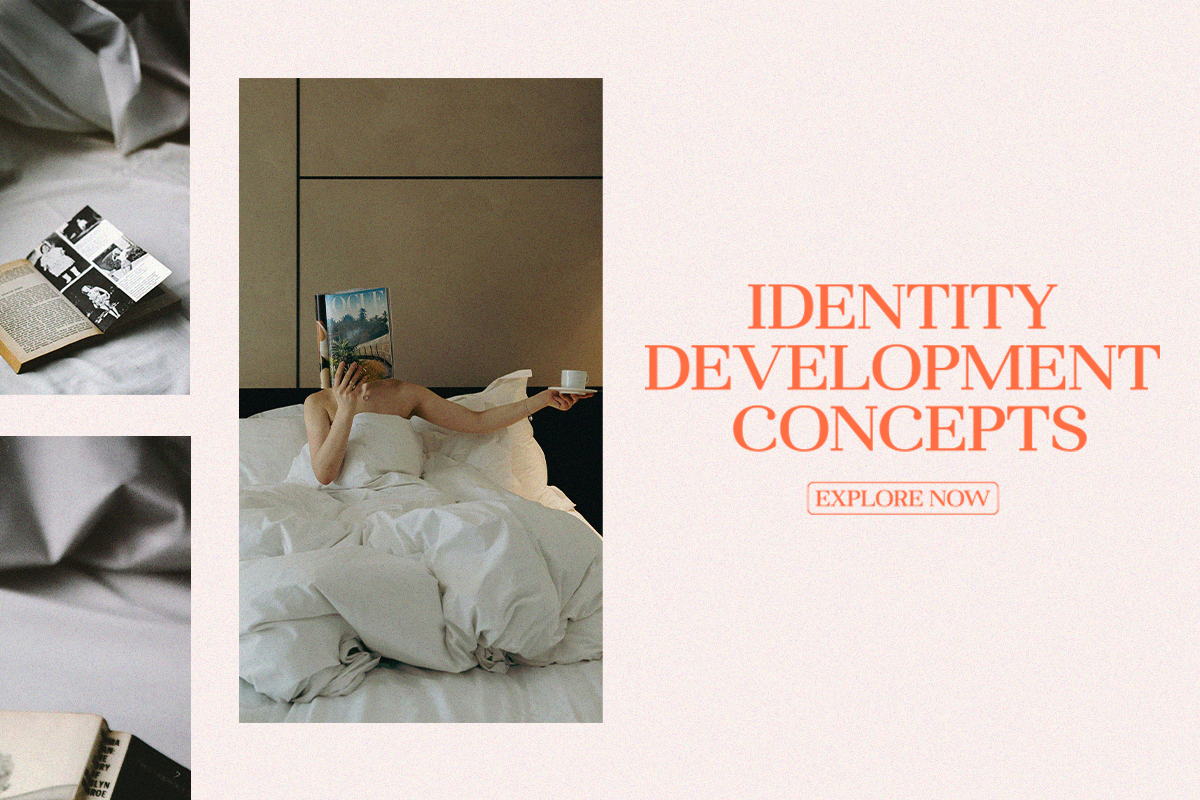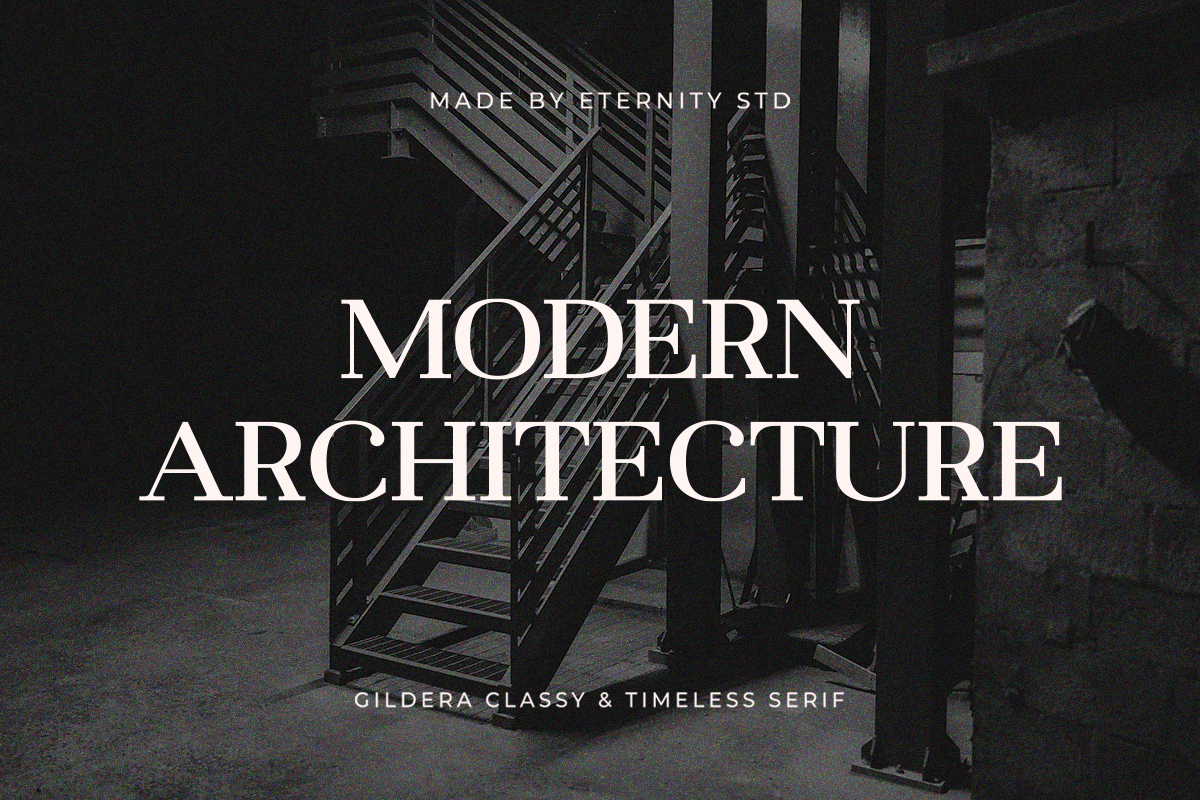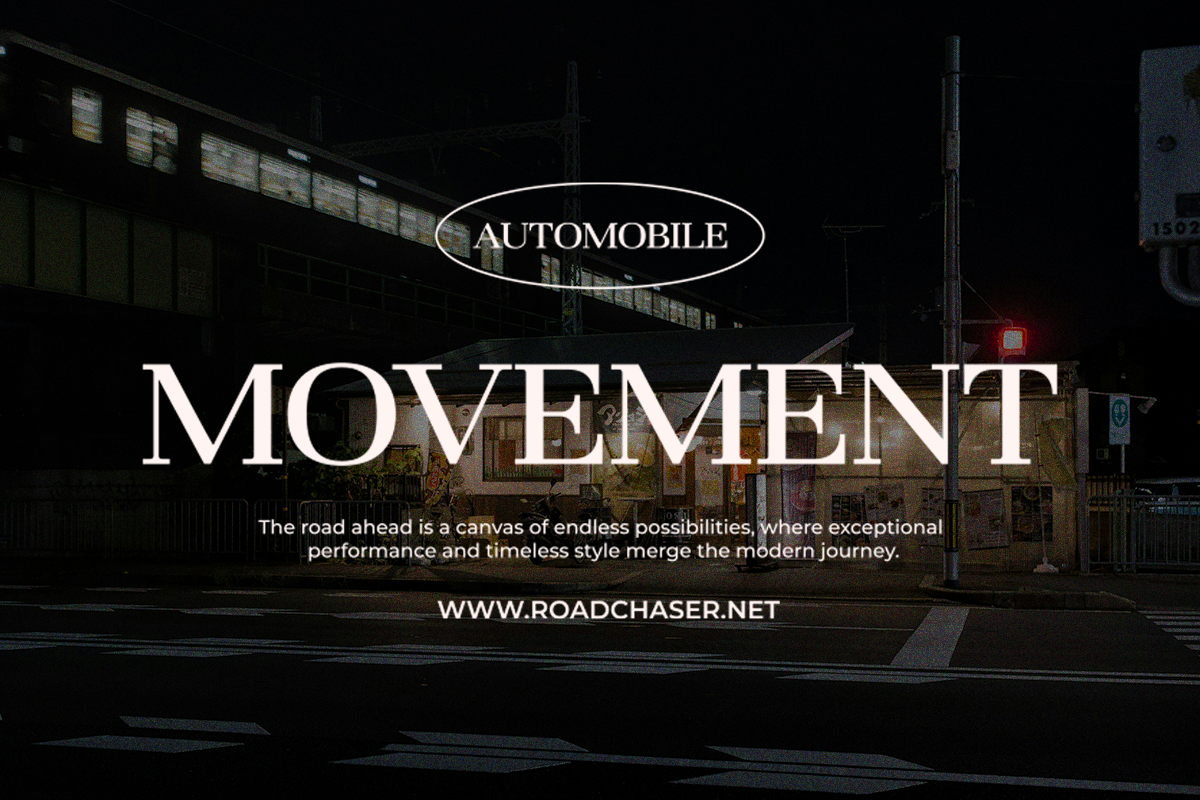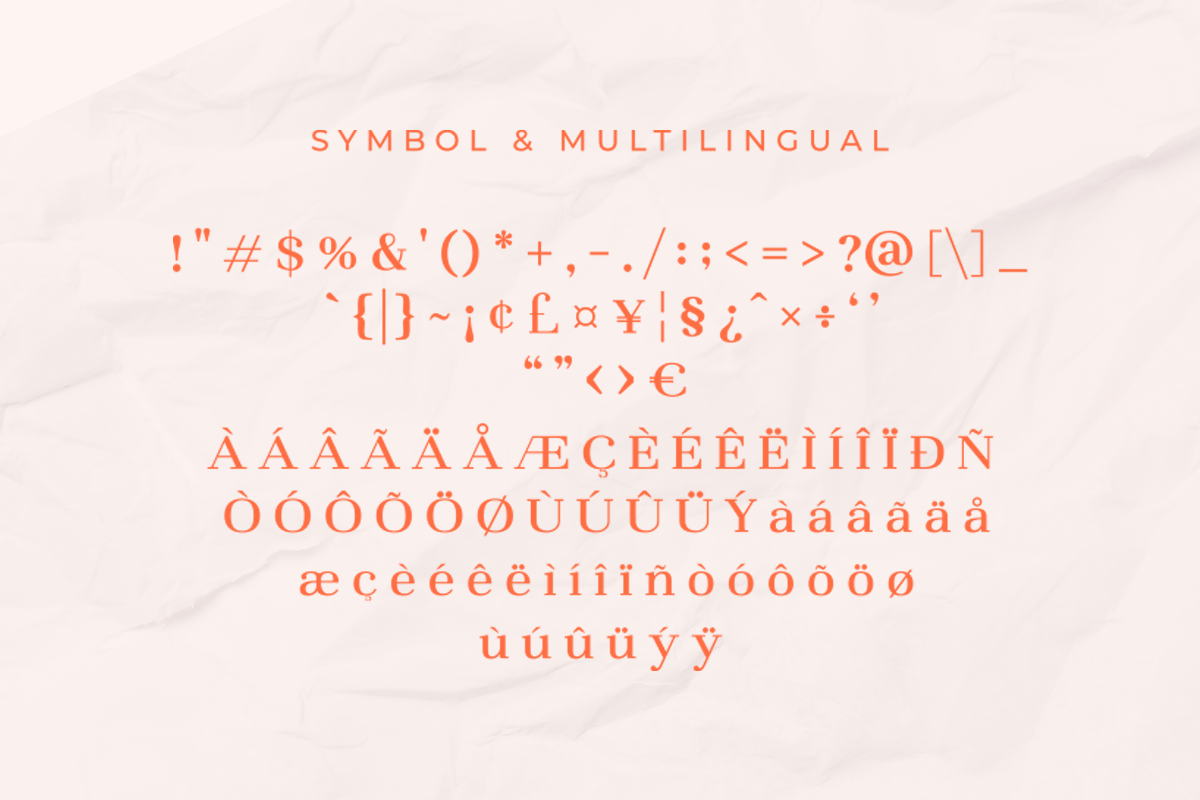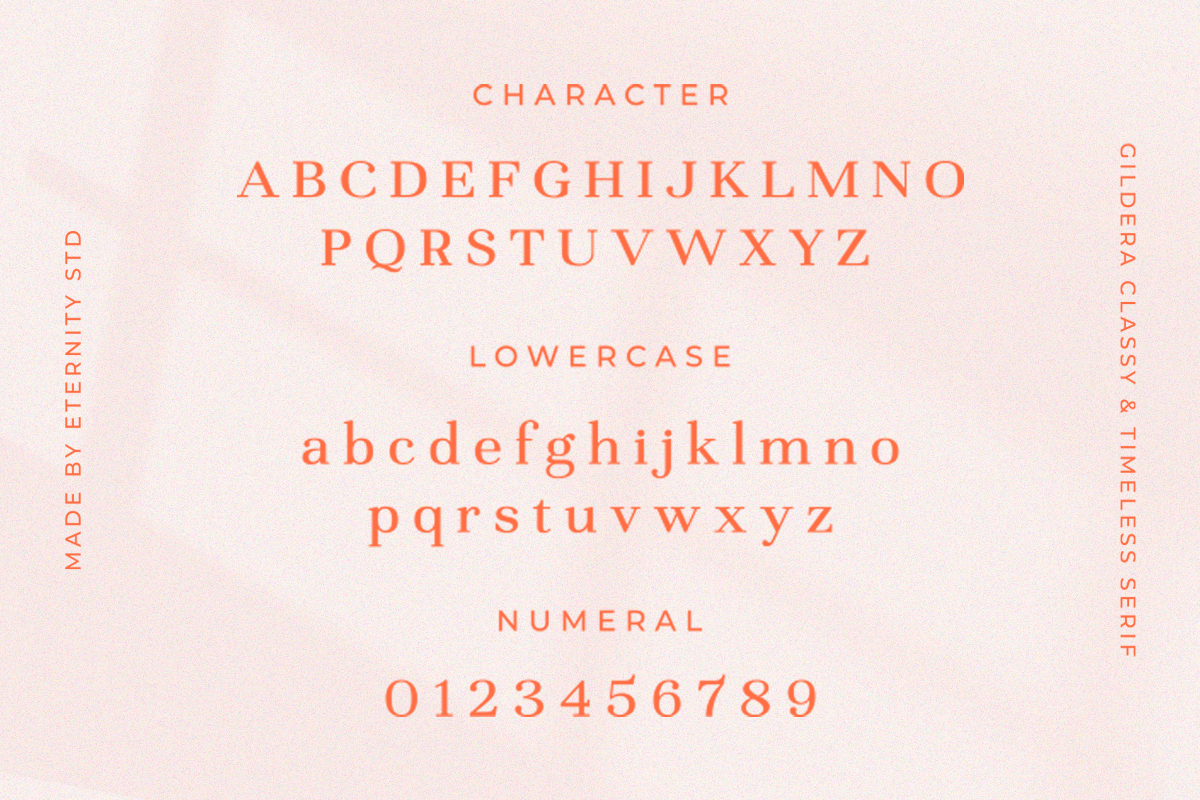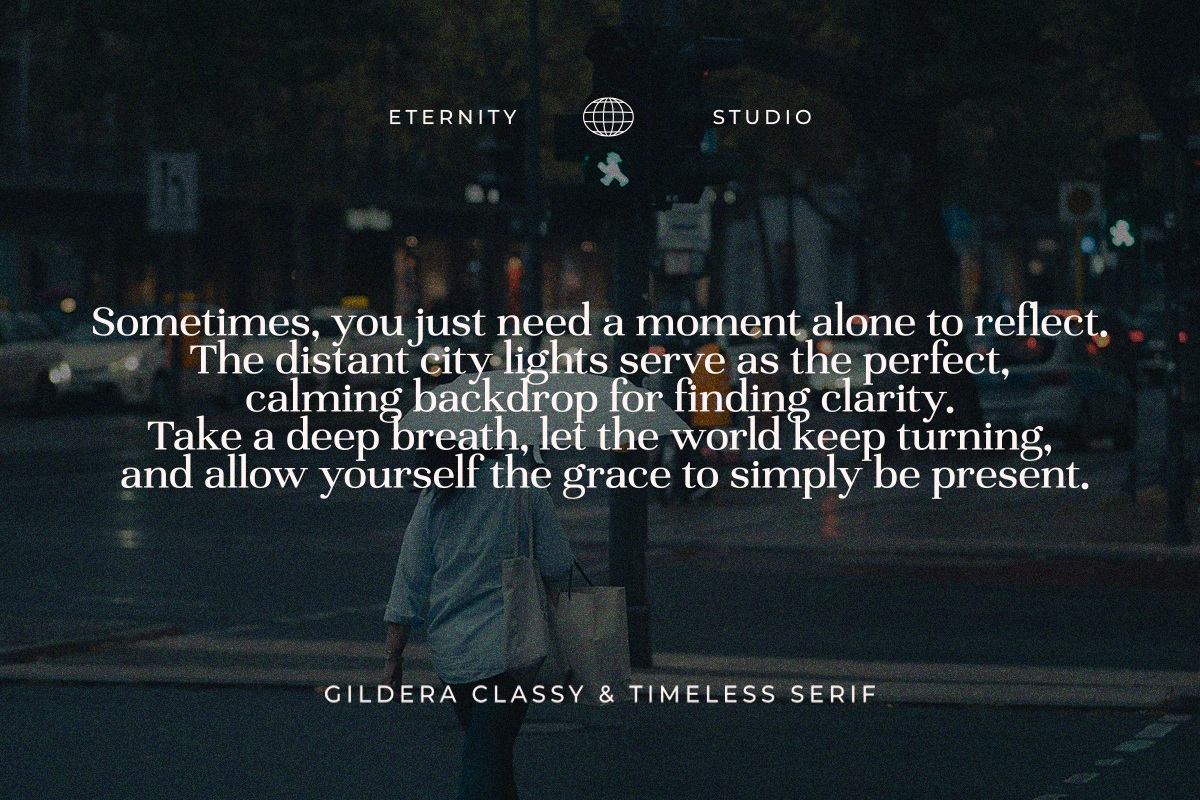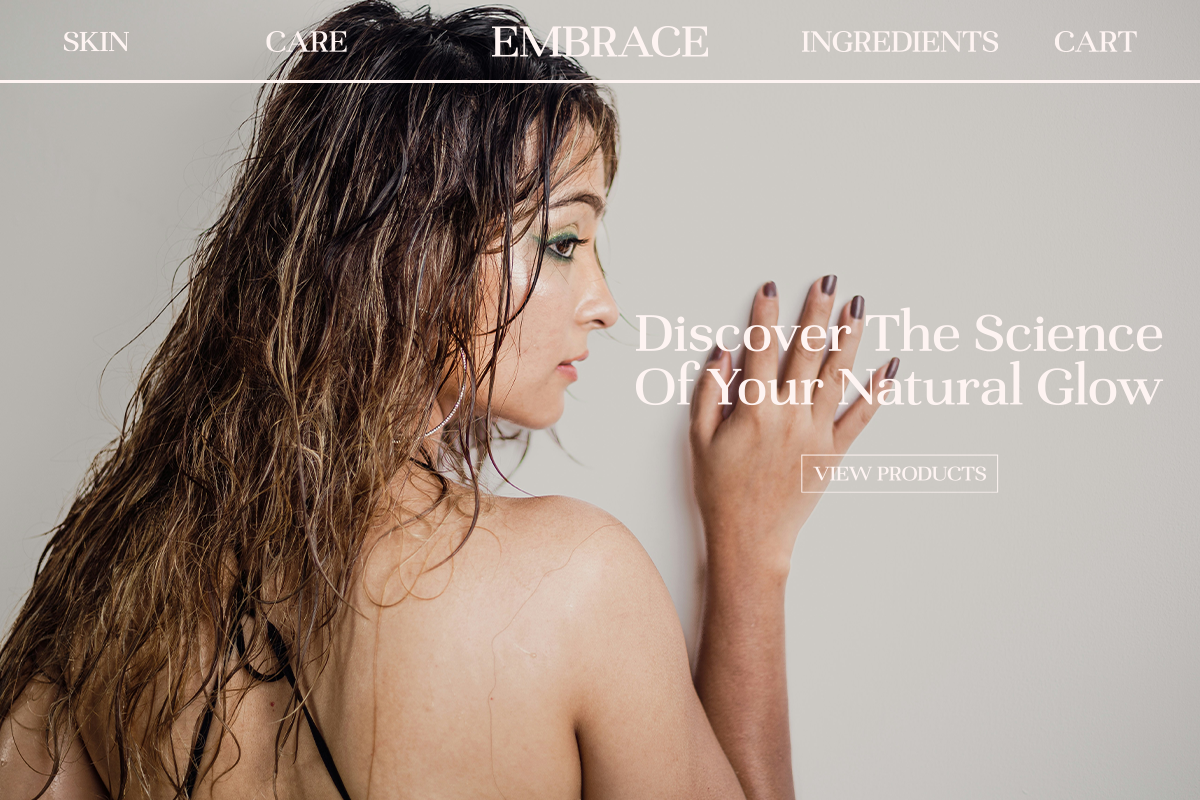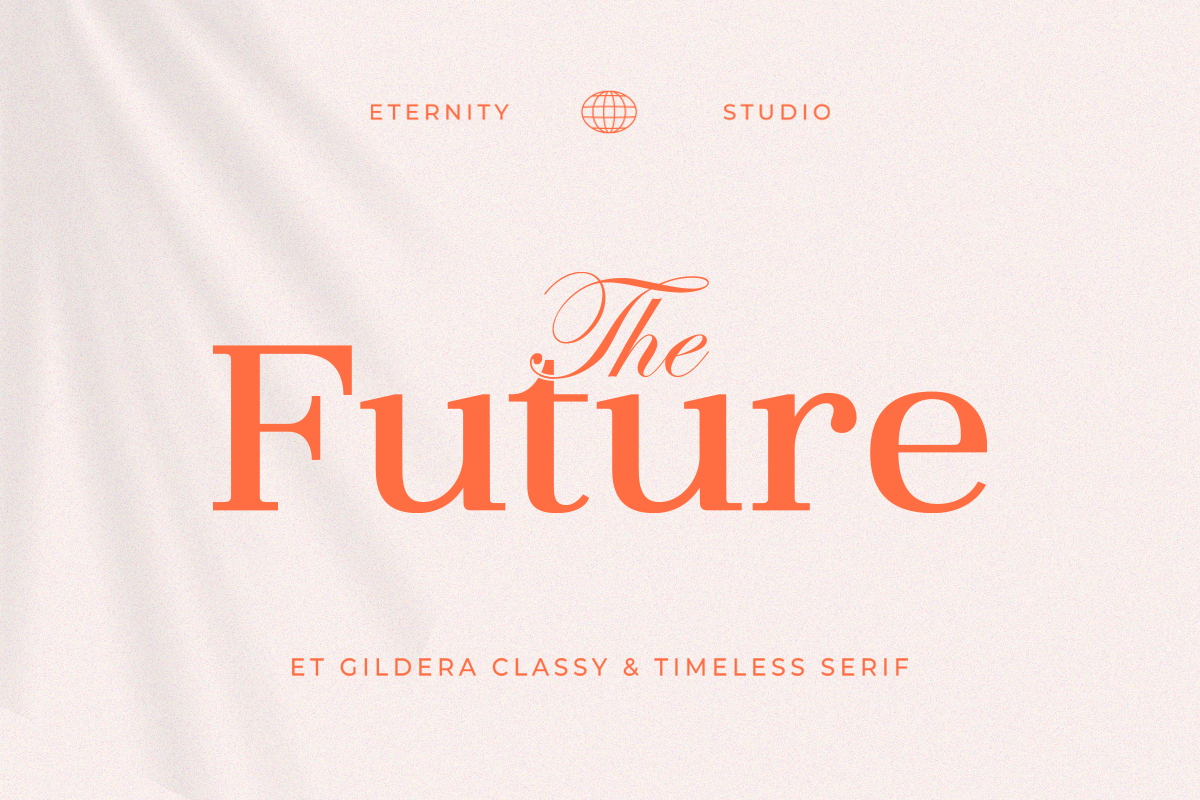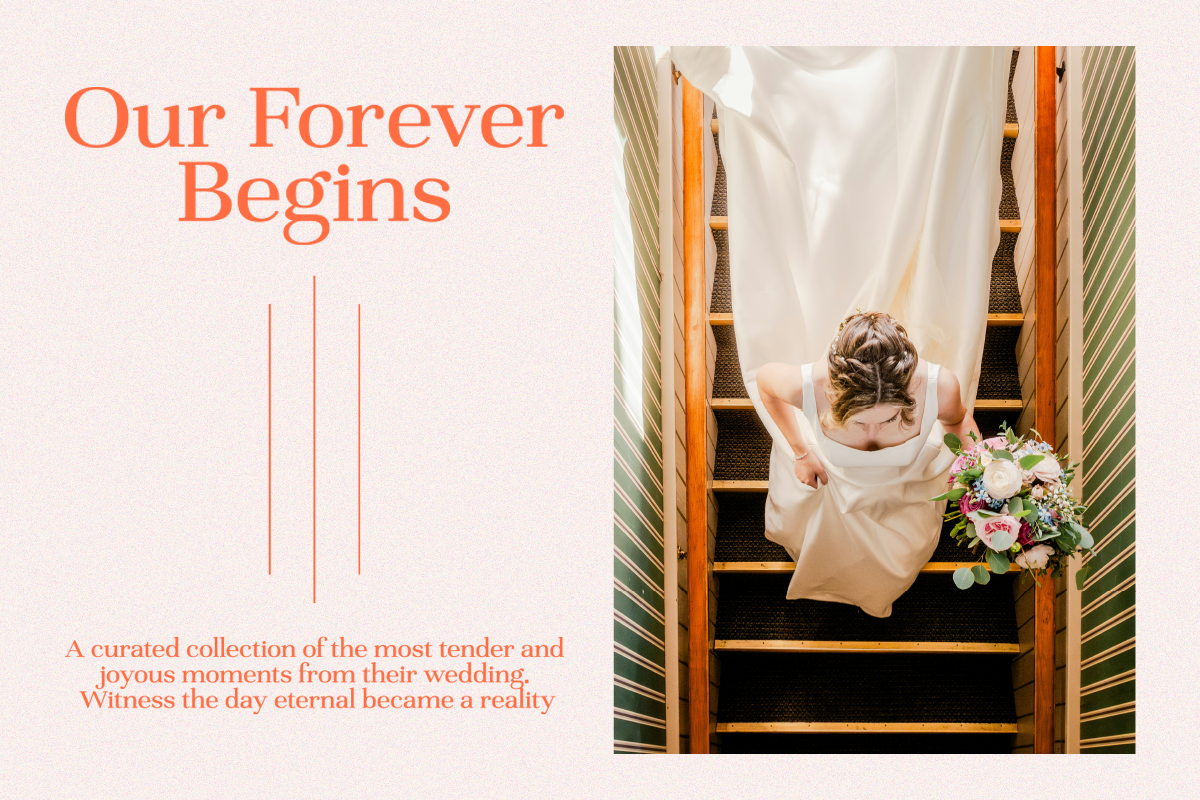
ET Gildera - Classy & Timeless Serif
ET Gildera - Classy & Timeless Serif Step into a world of enduring elegance with ET Gildera, a refined serif typeface that embodies sophistication and grace. Meticulously crafted with balanced forms and a distinctly classy appeal, ET Gildera is designed to elevate your brand from the everyday to the extraordinary.
Key Features Include:
Uppercase & Lowercase Characters
Standard Ligatures